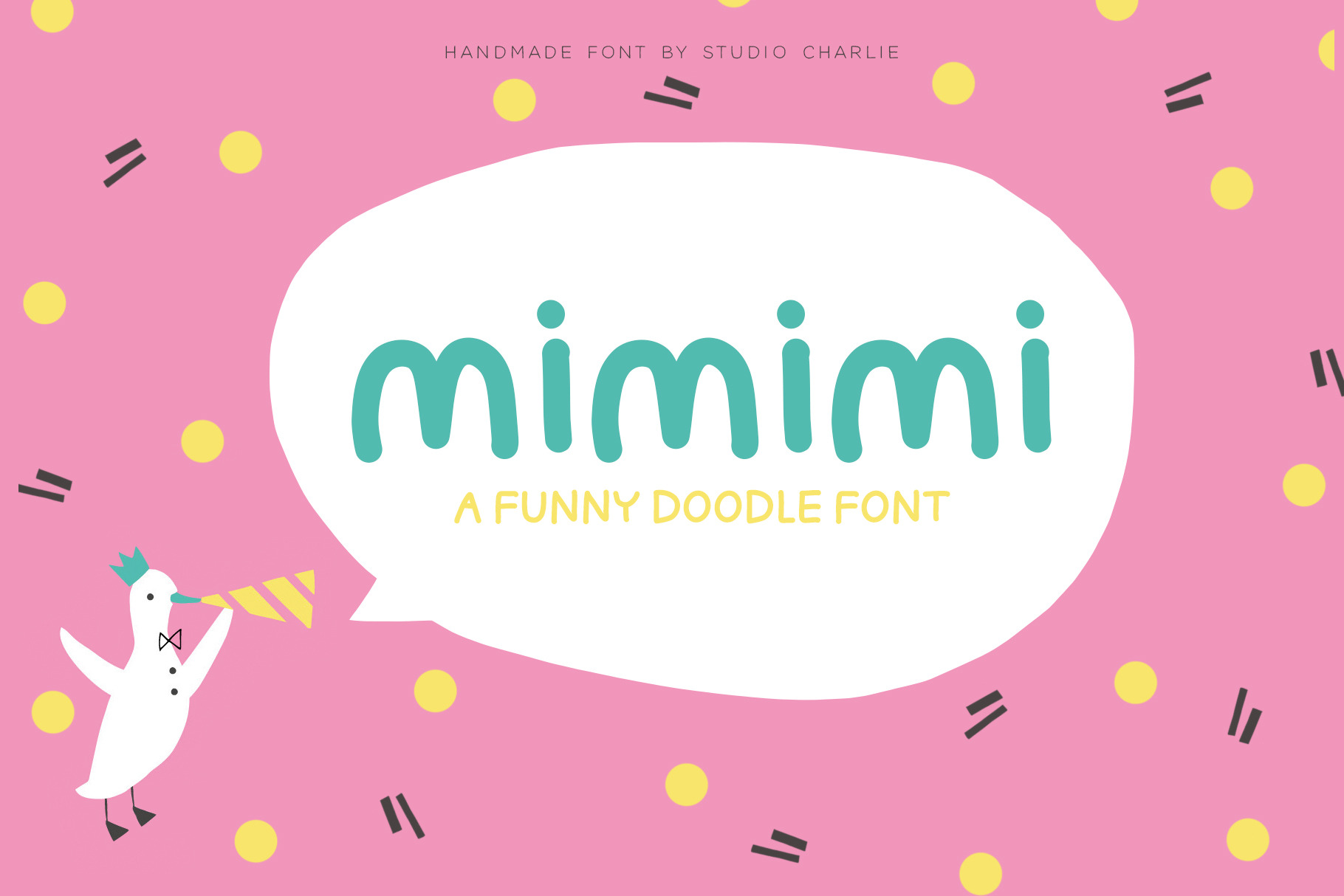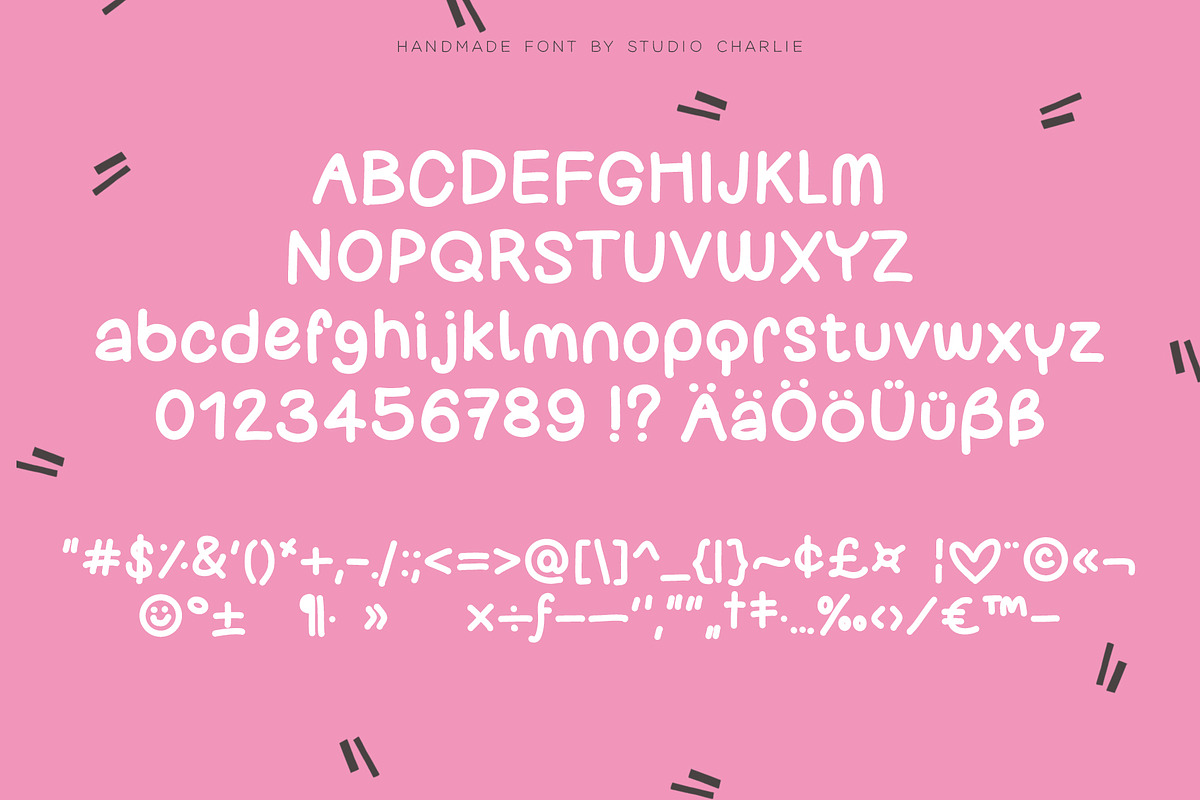
Mimimi - A Funny Doodle Font
Mimimi is a simple and fun comic doodle font that supports English and German characters. The OTF font file comes with a full alphabet of both lower- and uppcase letters as well as numbers and punctuation. Some extra glyphs have been added for fun writing.
This font reminds us at time we were reading mangas and comics all day long.